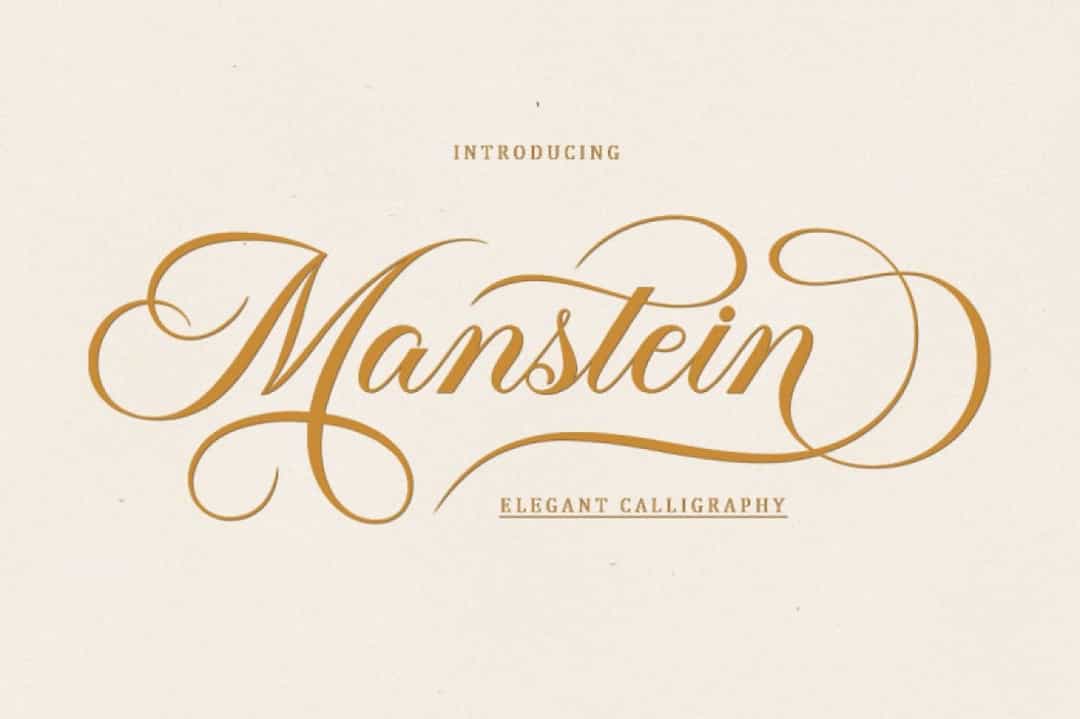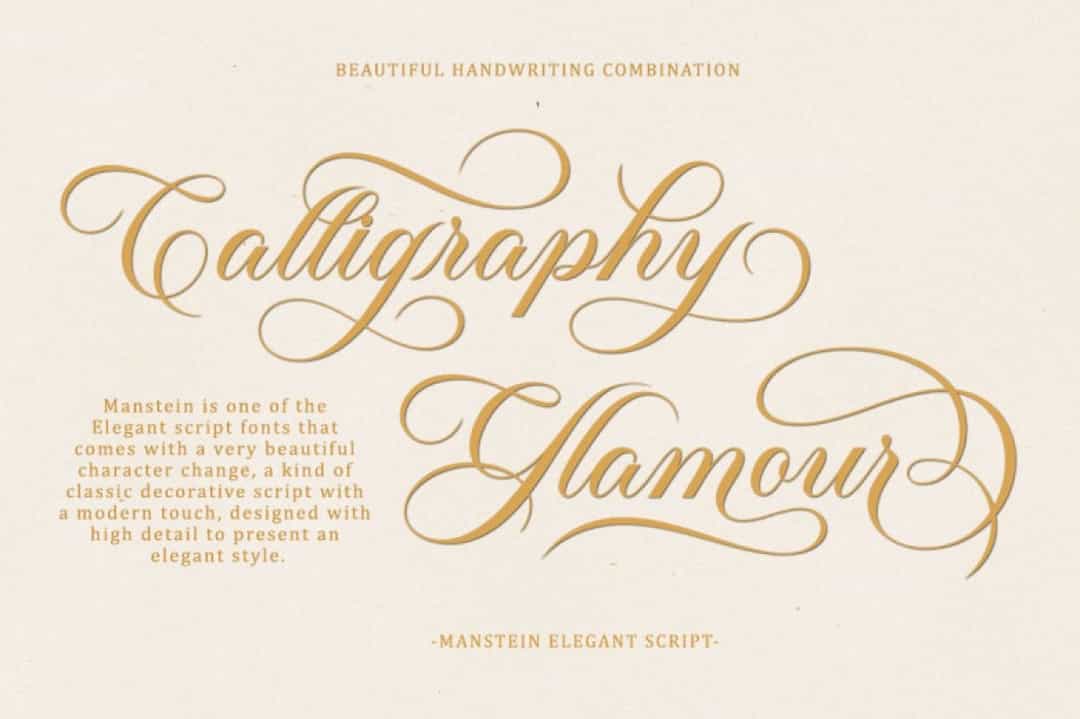
Manstein can be described as one of the beautiful script fonts with stunning character changes and modern flair; an elegant copper decorative script designed with exactitude for stunning designs.